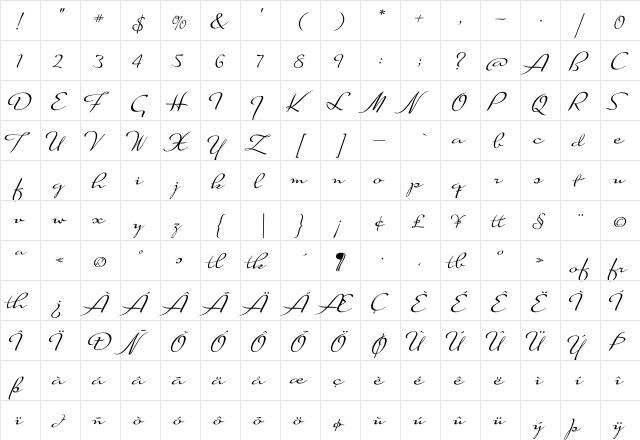
Suave Script Regular
| Foundry | Sudtipos by Alejandro Javier Paul. Buenos Aires, Argentina |
Design Context for Suave Script Typeface
Suave Script brings a calligraphic fluidity to the page — its connecting strokes and expressive curves give it an unmistakably human quality.
Font Pairing: Combine Suave Script with a simple geometric sans for maximum contrast — the tension between flowing curves and clean structure is a classic typographic pairing.
Pro Tip: Pair Suave Script with a clean sans-serif for supporting text. The contrast between fluid script and geometric structure creates an elegant typographic hierarchy.